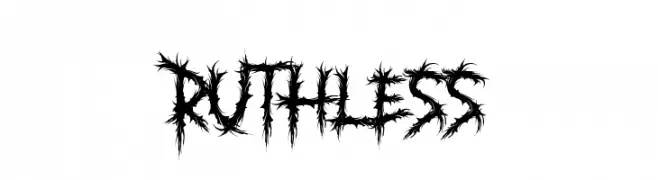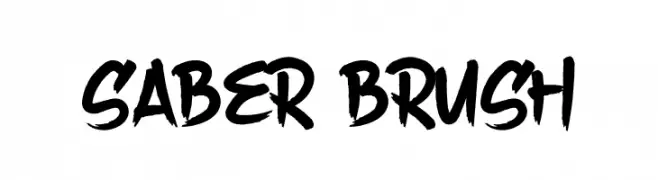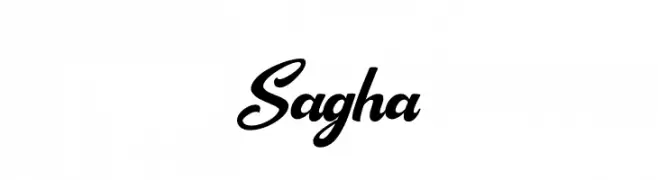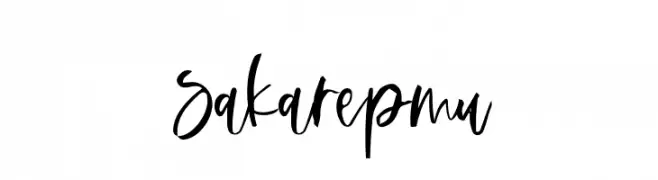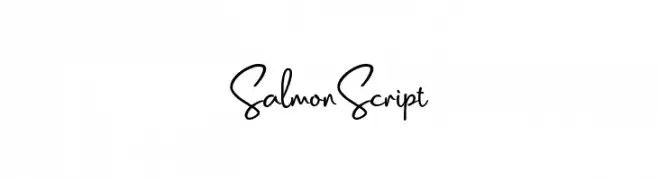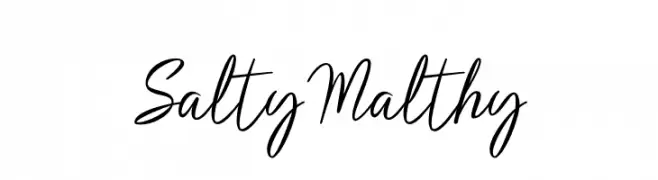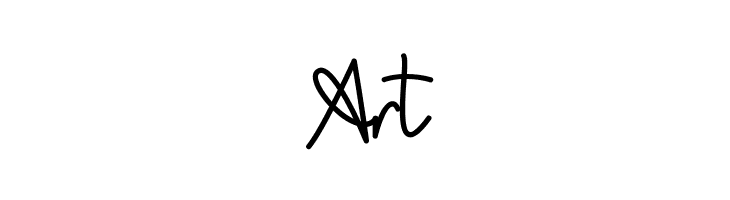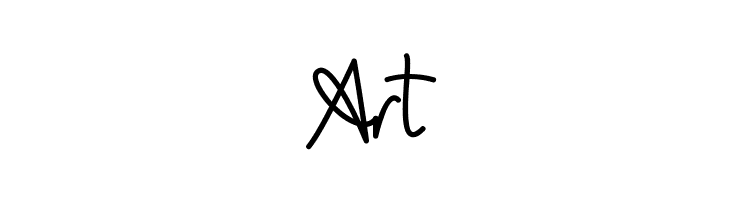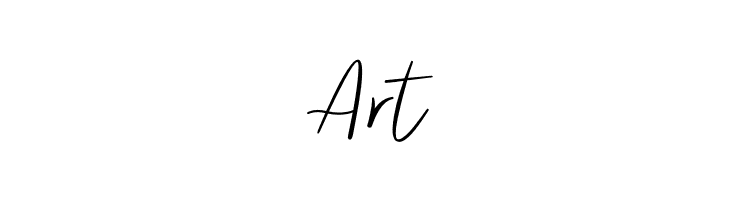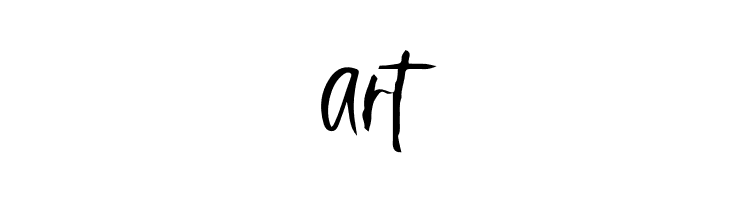
A thorny, jagged font with a chaotic and intense design.
A bold, brush-style font with dynamic, hand-painted strokes.
A bold, flowing script font with elegant, connected characters.
A playful, handwritten font with lively, interconnected strokes and a whimsical style.
A playful, handwritten script font with an italic style.
A playful and elegant script font with a handwritten style.
A flowing, cursive script font with elegant, connected strokes.
A lively and expressive handwritten font with fluid, dynamic strokes.
A playful and elegant script font with flowing, cursive characters.
A lively and fluid script font with elegant, flowing strokes.